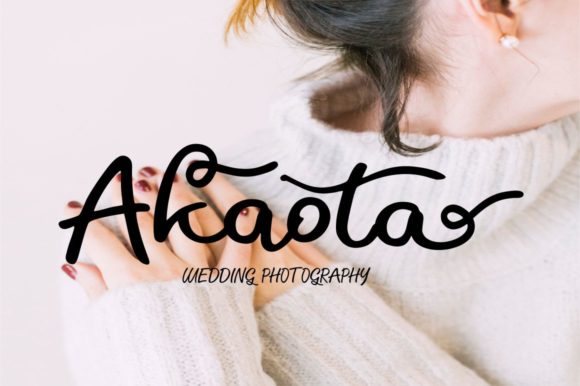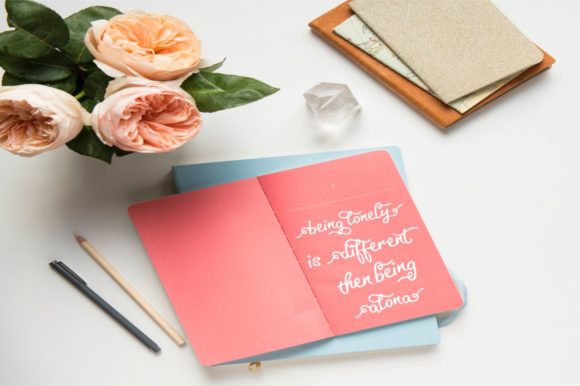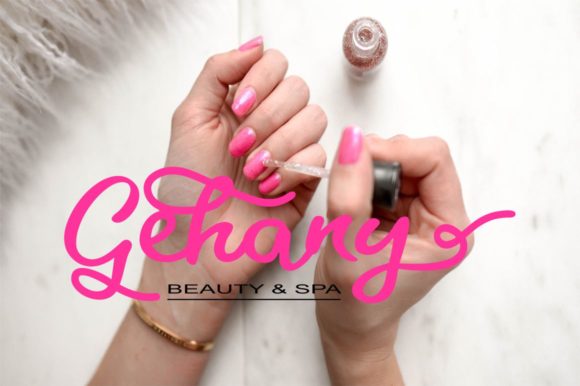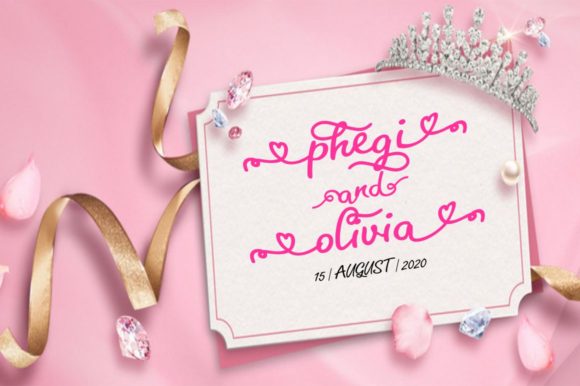
King of Love Font – Free Download
Introduction to King of Love Font
King of Love is a lovely script font that features gorgeous swashes.
| ๐ค Author | Rama Type |
It will look particularly cute in any Valentineโs Day crafts .
Key Features of King of Love Font
Why Choose King of Love Font?
King of Love Font offers exceptional quality and versatility, making it a valuable addition to your design toolkit. Whether you’re creating for personal projects or commercial use, King of Love Font delivers professional results.